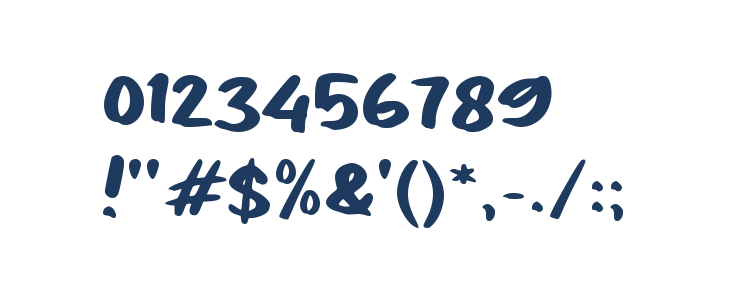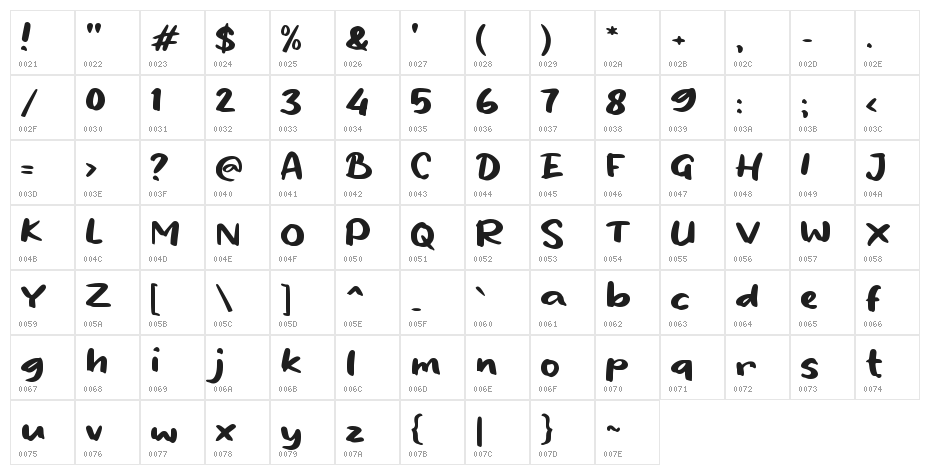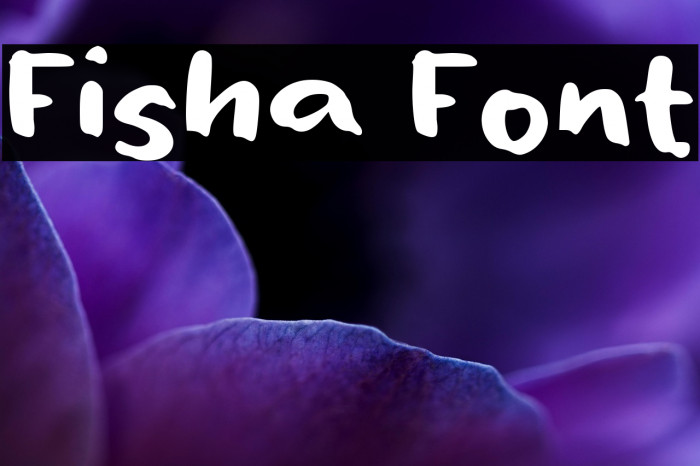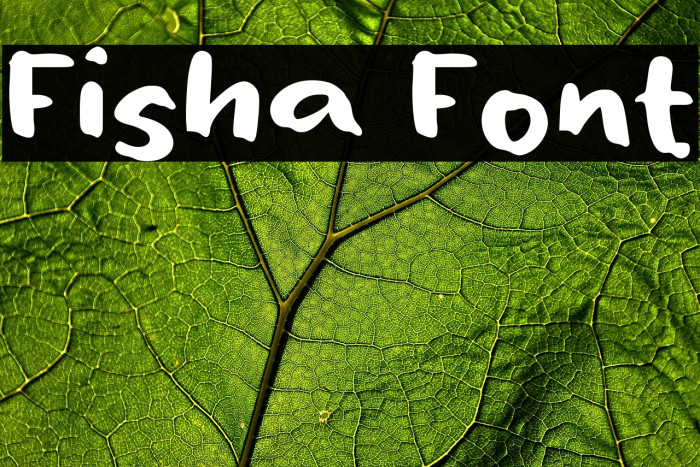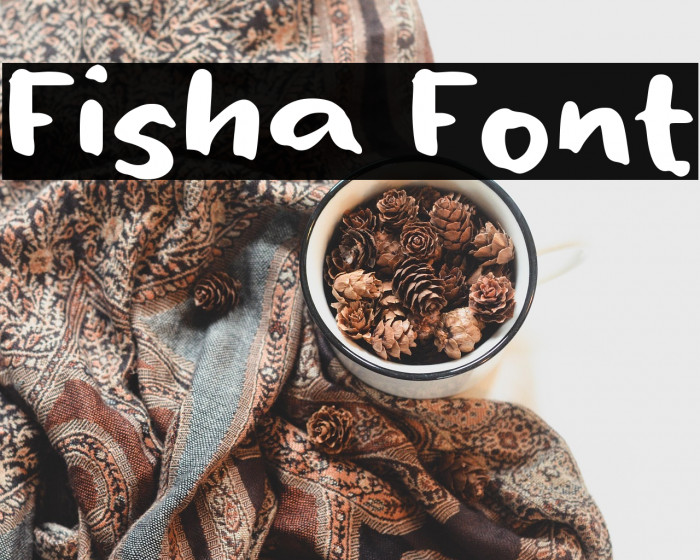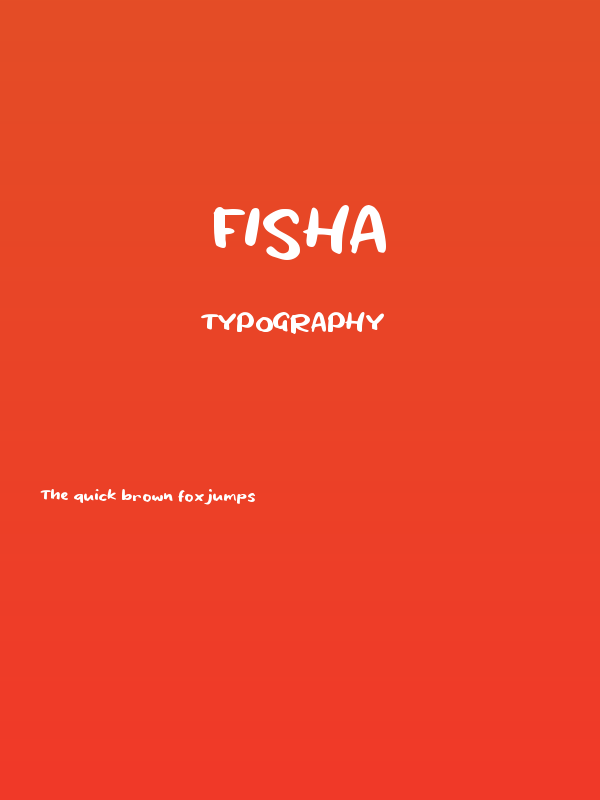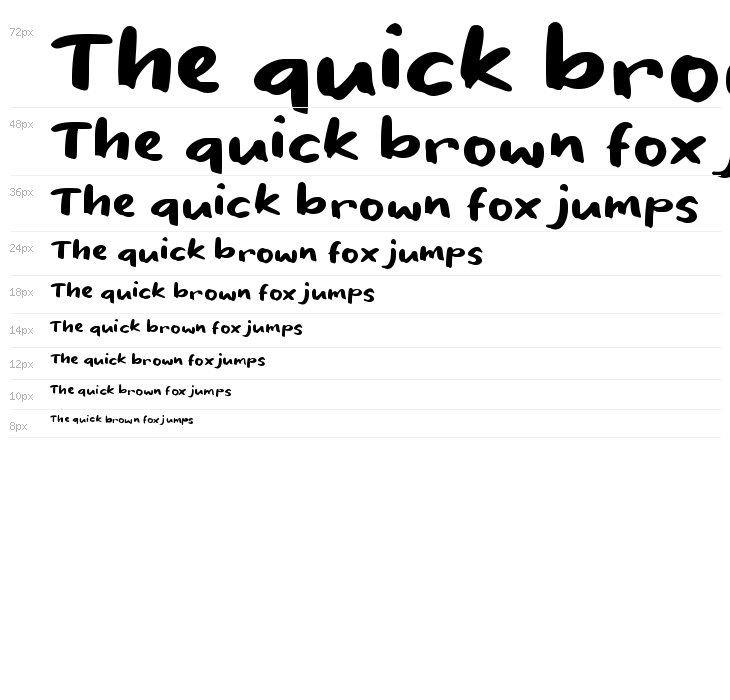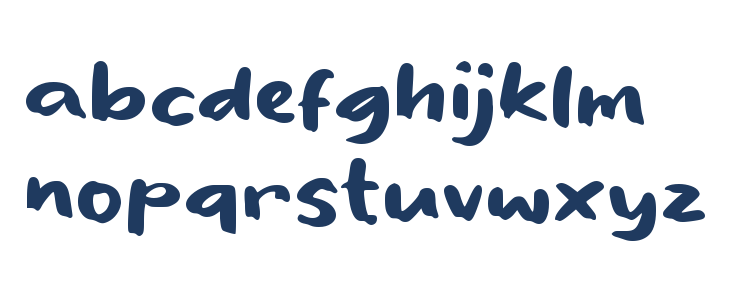
Fisha Font
Fisha Description
This font features a playful and bold handwritten style, characterized by its thick, rounded strokes and slightly irregular shapes. The letters have a casual, friendly appearance, making them ideal for projects that require a personal touch. The uppercase and lowercase letters maintain a consistent style, with the uppercase being slightly larger and more pronounced. Numbers and special characters are designed to match the overall aesthetic, ensuring a cohesive look across all text elements. The font's informal nature lends itself well to creative and fun applications.
| Overall Style | Casual, Playful |
| Use Case | Headlines, Logos, Informal Text |
| Proposed Projects | Ideal for greeting cards, children's books, playful branding, and casual social media graphics. |